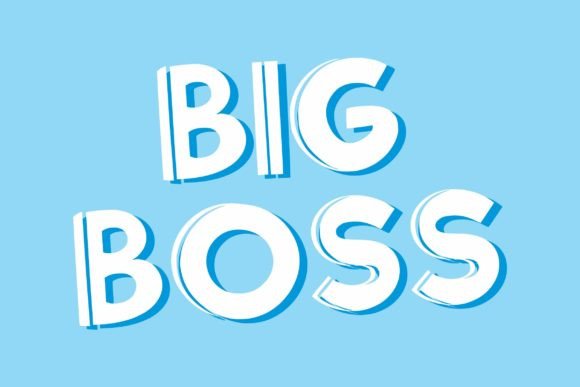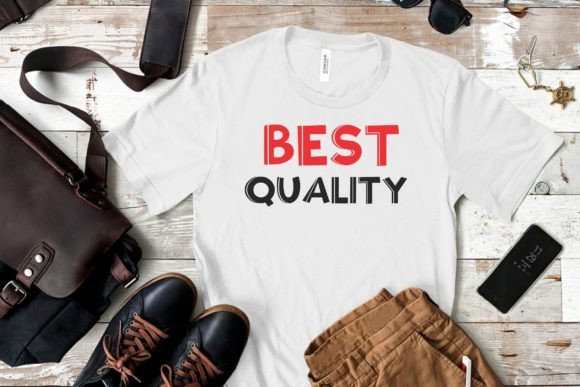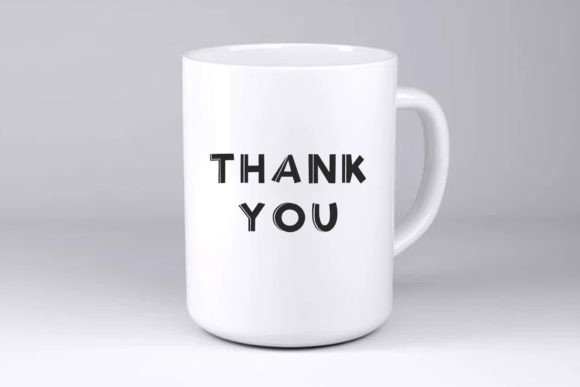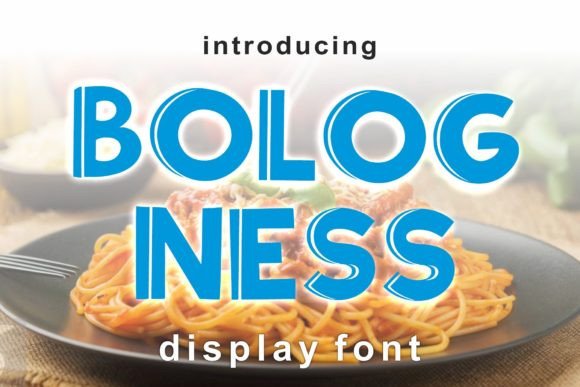
Bologness Font: Elevate Your Creative Projects with a Groovy Display Font
Are you tired of using the same old fonts for your creative projects? Look no further! Bologness font is here to take your designs to the next level. This groovy display font is perfect for crafters, designers, and anyone looking to add a touch of personality to their work. In this article, we’ll dive into the world of Bologness font and explore its features, uses, and benefits.
What is Bologness Font?
Bologness font is a unique and stylish display font that is sure to make your creative projects stand out. Its groovy and playful vibe makes it perfect for a wide range of applications, from t-shirts and stickers to children’s books and social media posts. With its bold and eye-catching design, Bologness font is sure to grab attention and leave a lasting impression.
Features of Bologness Font
So, what makes Bologness font so special? Here are just a few of its key features:
- Groovy design: Bologness font has a unique and playful design that is sure to add a touch of personality to your creative projects.
- High-quality: This font is designed with high-quality and clarity in mind, making it perfect for both digital and print applications.
- Versatile: Bologness font can be used for a wide range of projects, from t-shirts and stickers to children’s books and social media posts.
Uses of Bologness Font
So, what can you use Bologness font for? The possibilities are endless! Here are just a few ideas to get you started:
- T-shirts and apparel: Add a touch of personality to your t-shirts and apparel with Bologness font.
- Stickers and labels: Create eye-catching stickers and labels with this groovy display font.
- Children’s books and educational materials: Add a playful touch to your children’s books and educational materials with Bologness font.
- Social media posts: Make your social media posts stand out with this bold and eye-catching font.
- Invitations and party decorations: Create unique and personalized invitations and party decorations with Bologness font.
Benefits of Using Bologness Font
So, why should you use Bologness font for your creative projects? Here are just a few benefits:
- Adds personality: Bologness font adds a touch of personality to your creative projects, making them stand out from the crowd.
- Increases engagement: This font is sure to grab attention and increase engagement with your audience.
- Versatile: Bologness font can be used for a wide range of projects, making it a great addition to your font library.
Tips for Using Bologness Font
Here are a few tips for using Bologness font:
- Use it sparingly: Bologness font is bold and eye-catching, so use it sparingly to avoid overwhelming your design.
- Pair it with other fonts: Experiment with pairing Bologness font with other fonts to create a unique and interesting design.
- Experiment with colors: Try out different colors and color combinations to add an extra touch of personality to your design.
In conclusion, Bologness font is a groovy display font that is sure to take your creative projects to the next level. With its unique and playful design, high-quality, and versatility, this font is perfect for designers and crafters of all skill levels. Whether you’re creating t-shirts, stickers, children’s books, or social media posts, Bologness font is sure to add a touch of personality and make your designs stand out. So why wait? Give Bologness font a try today and see the difference it can make!